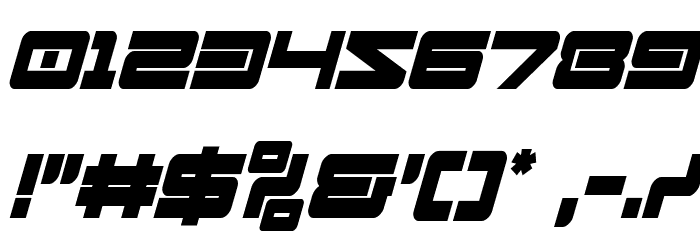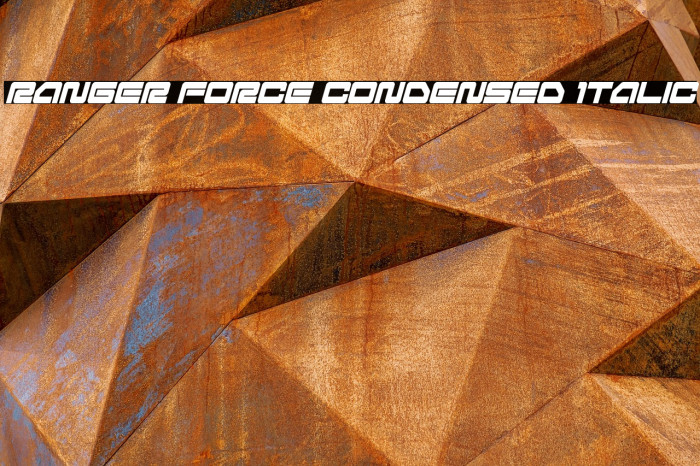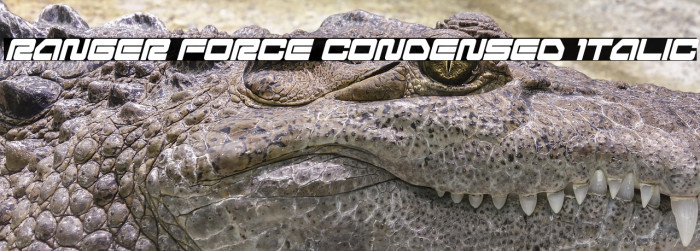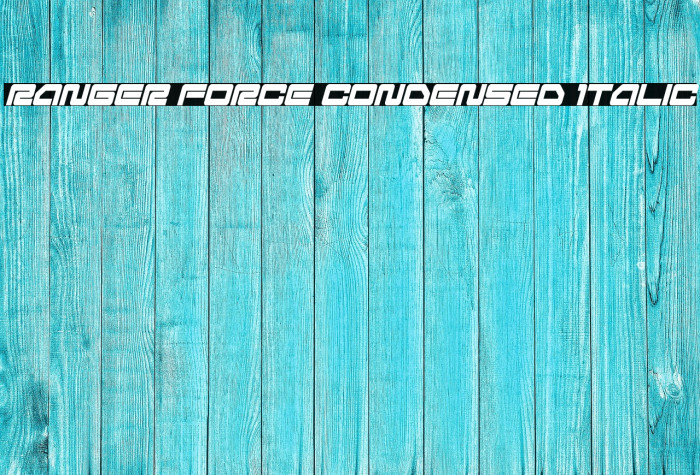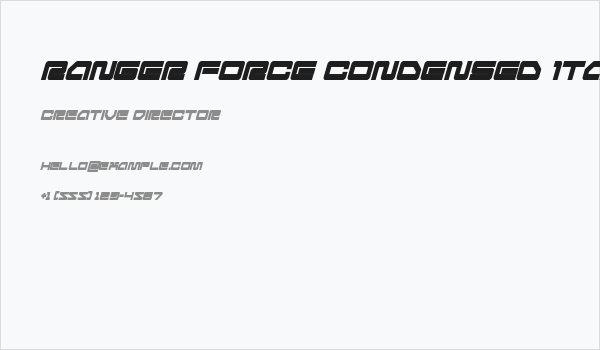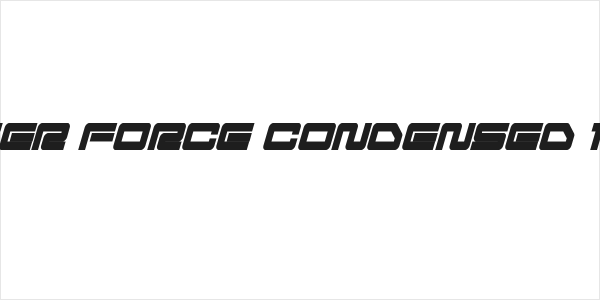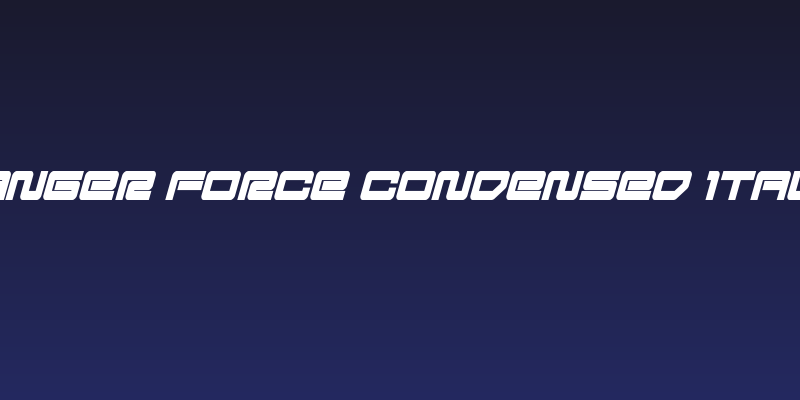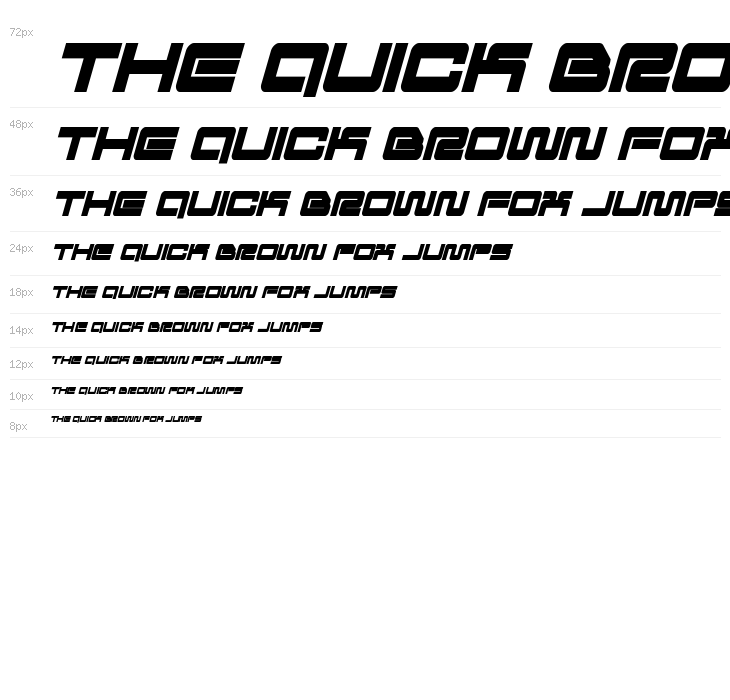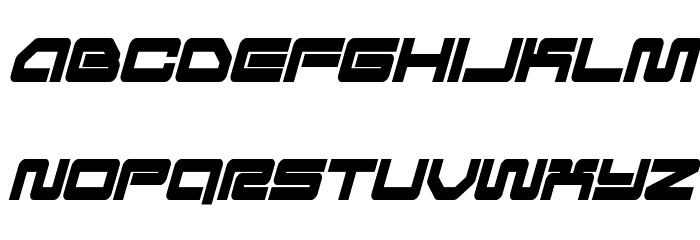
Ranger Force Condensed Italic Font
Ranger Force Condensed Italic Description
This font features a bold, condensed style with a futuristic and dynamic appearance. The italicized slant adds a sense of motion and speed, making it ideal for projects that require a modern and energetic look. The characters are designed with sharp angles and clean lines, providing a sleek and streamlined aesthetic. The uppercase and lowercase letters maintain a consistent style, with numerals and special characters complementing the overall design. This font is well-suited for headlines, logos, and branding that aim to convey a sense of innovation and forward-thinking.